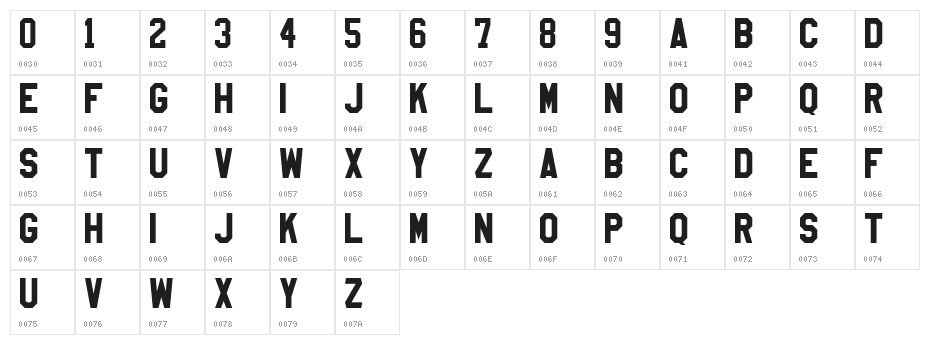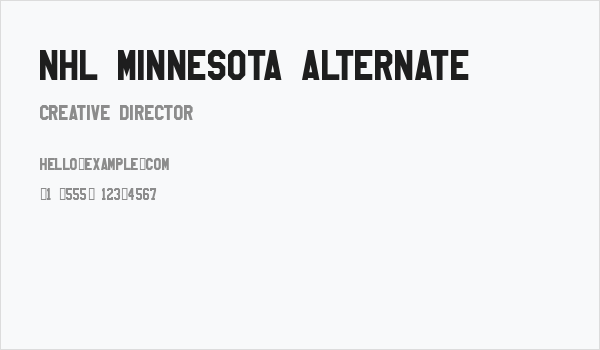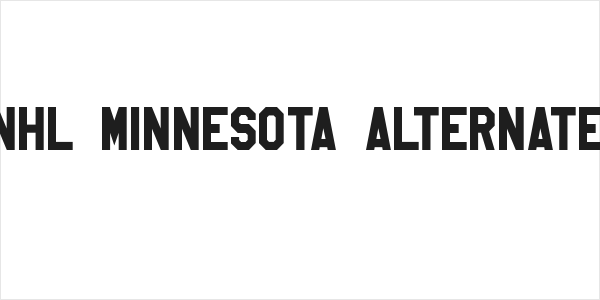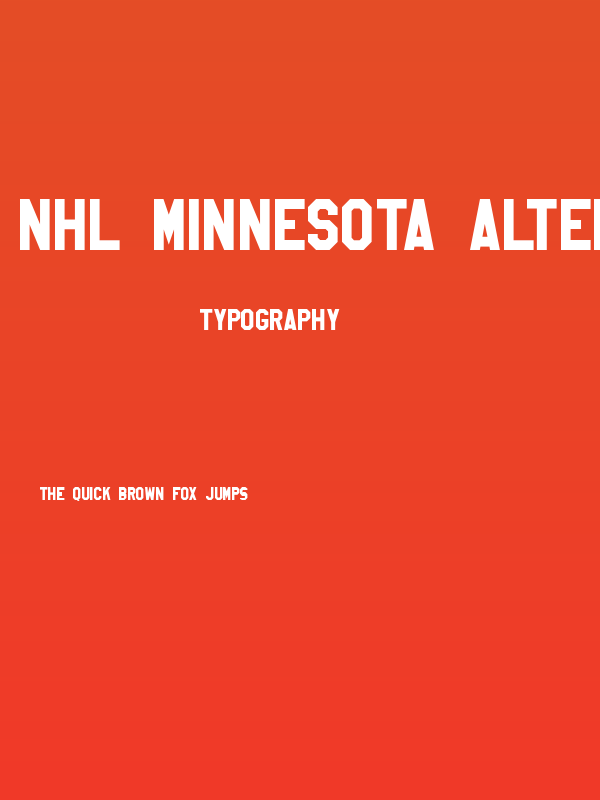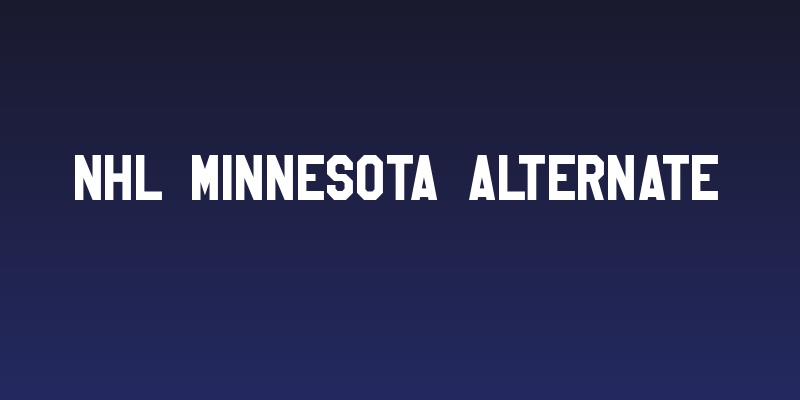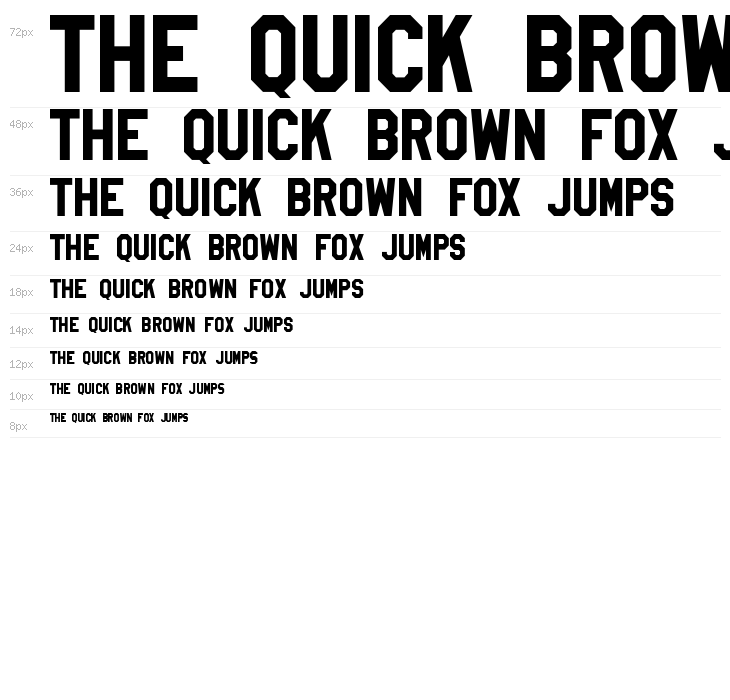
NHL Minnesota Alternate Font
NHL Minnesota Alternate Description
This font features a bold, geometric style with strong, angular lines and a robust presence. The uppercase letters are uniform in height, creating a cohesive and structured appearance. The numbers follow the same bold and angular design, ensuring consistency across all characters. The font's design is reminiscent of sports jerseys, with a focus on readability and impact. The lack of special characters suggests a focus on alphanumeric use, ideal for contexts where clarity and boldness are paramount.
| Proposed Projects | This font is perfect for sports team branding, merchandise, posters, and any project requiring a bold, impactful typeface. |